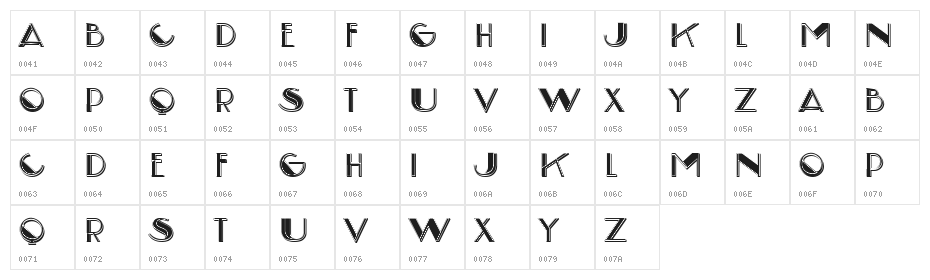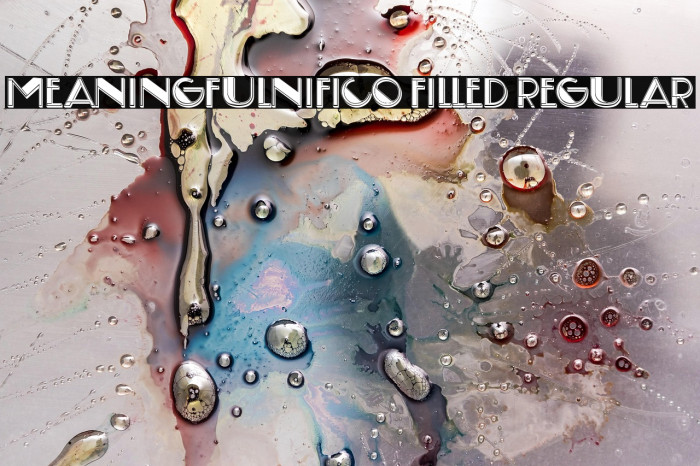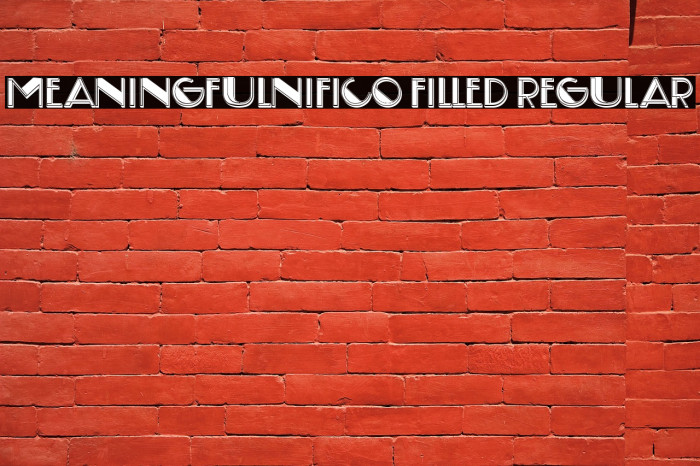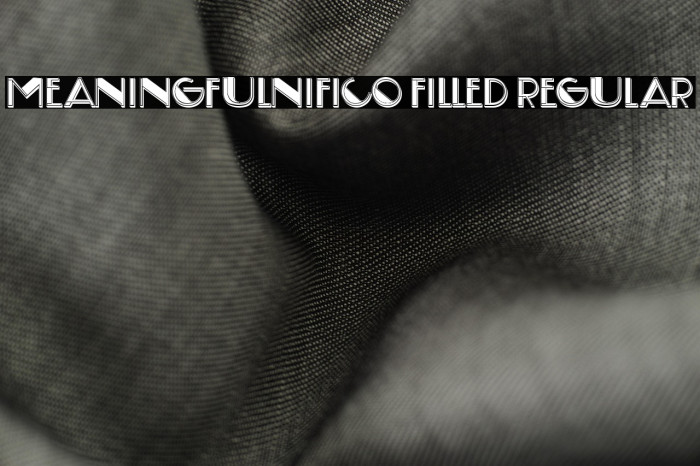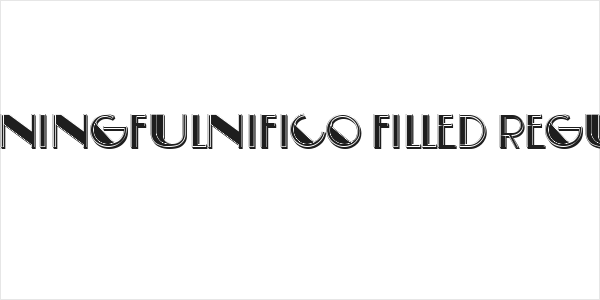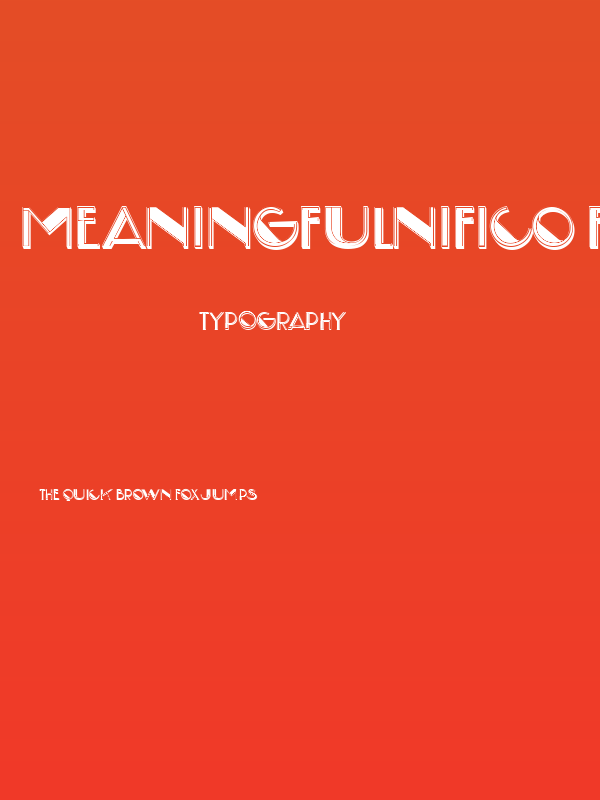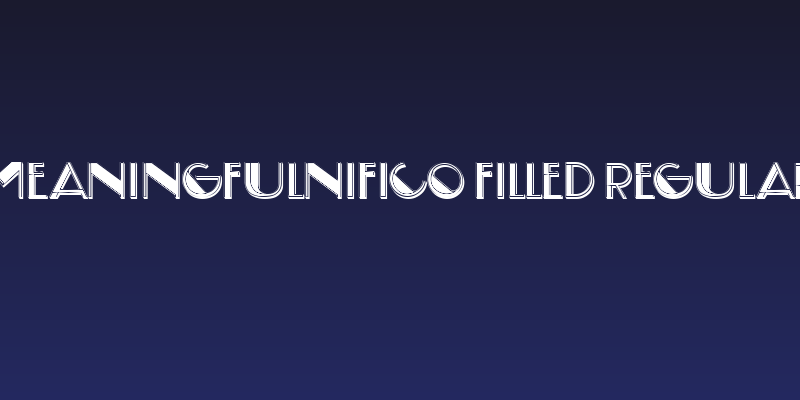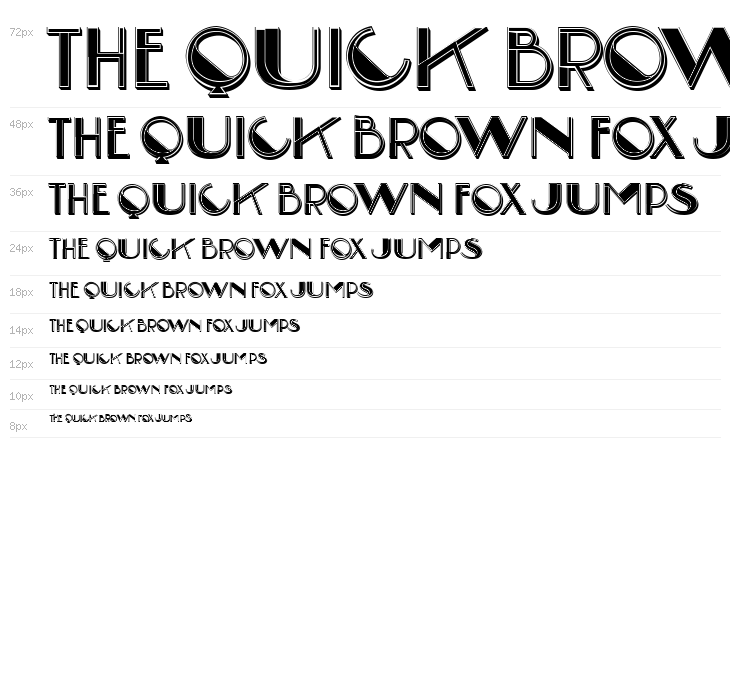
Meaningfulnifico Filled Regular Font
Meaningfulnifico Filled Regular Description
This font features a bold and striking design with a modern twist. The characters are outlined with a thick border, creating a filled effect that enhances their visibility and impact. The geometric shapes and clean lines give it a contemporary feel, while the unique styling of certain letters adds a touch of creativity. The uppercase letters are particularly eye-catching, with a consistent height and width that ensures readability. This font is perfect for making a statement in any design project, offering both style and clarity.